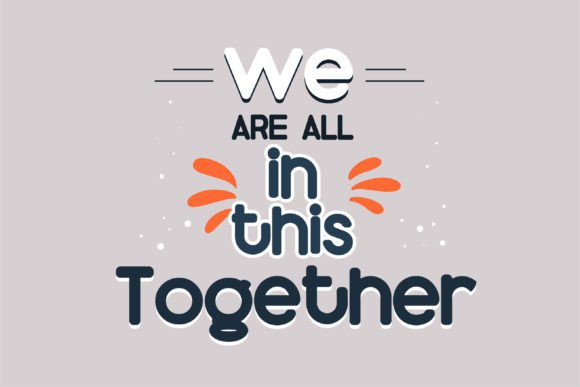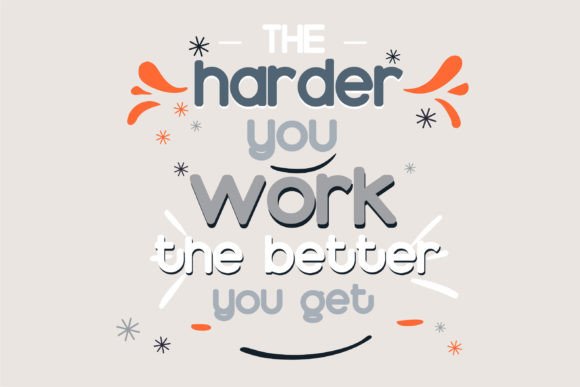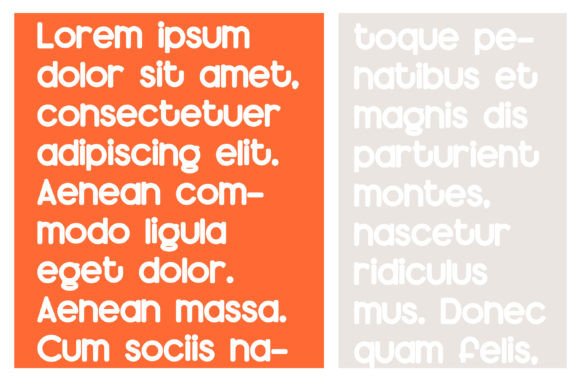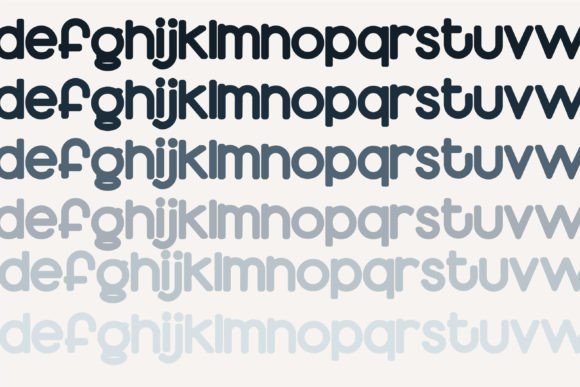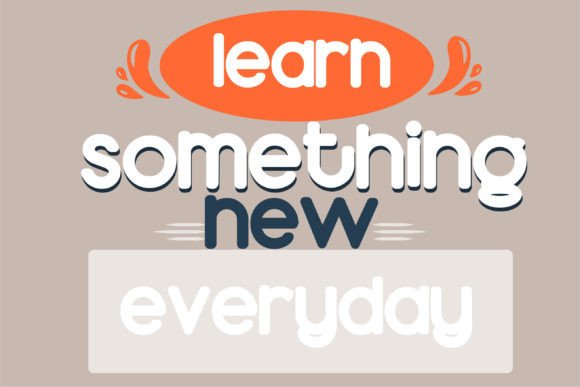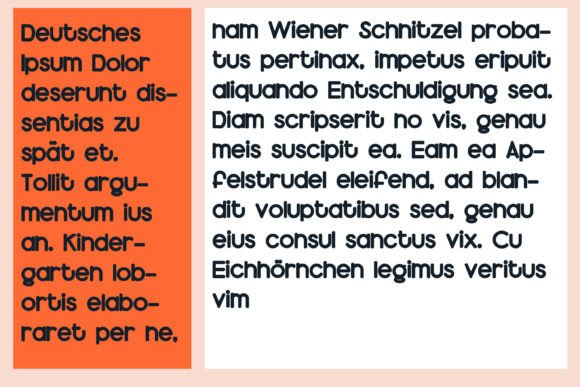
Introduction to Roxaby Font
Have you ever stumbled upon a font that instantly sparks your creativity? For many designers, this moment is like finding the perfect brush stroke – it sets the tone for an entire project. And for us, that moment came when we discovered the Roxaby Font. This fun and friendly sans serif font boasts a cute retro vibe that’s perfect for a wide pool of design ideas.
Roxaby Font
- Unique, hand-drawn style with transparent background, allowing for versatility in design applications.
- Perfect for designers seeking a unique and creative design resource for their next project.
Honest Review: Roxaby Font
As a designer, I’ve had the chance to work with numerous fonts for various creative projects. The Roxaby Font is a relatively new addition to my design resource library, and I’m excited to share my honest thoughts on this high-quality font.
- ✨ High-quality design: The Roxaby Font boasts clean and modern lines that make it perfect for both digital and print projects.
However, I do have a few limitations to mention:
- ⚠️ Limited font variations: While the design is excellent, the font variations are limited, which may not be ideal for designers who prefer a wide range of options.
- ⚠️ Not suitable for extensive text: Due to its modern design, the Roxaby Font is best used for headings and titles rather than extensive blocks of text.
Overall, I’m impressed with the Roxaby Font’s quality and versatility. While it has its limitations, it’s an excellent choice for designers looking for a high-quality, free font for their creative projects.
Tips for Getting the Most Out of Roxaby Font
To get the most out of Roxaby Font, use it in conjunction with other design resources to create unique and eye-catching designs. Experiment with different font sizes, colors, and styles to find the perfect combination for your project.
Roxaby Font is perfect for a variety of creative projects, including graphic design, digital art, and even web design. Its high-quality design and transparent background feature make it an ideal choice for designers looking to add a professional touch to their work.